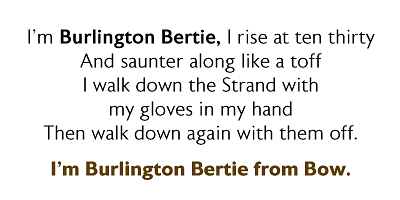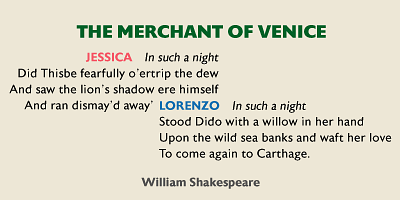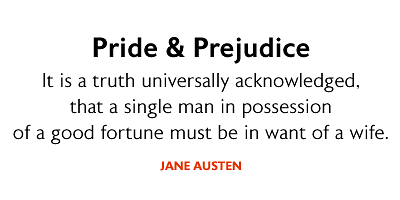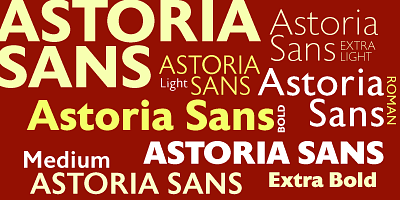
The Sans serif companion to Astoria. Based heavily on Gill especially in the mid weights and with a consistent series of condensed weights. Designed specifically as a text face it still works very well as a headline font.
Alan Meeks